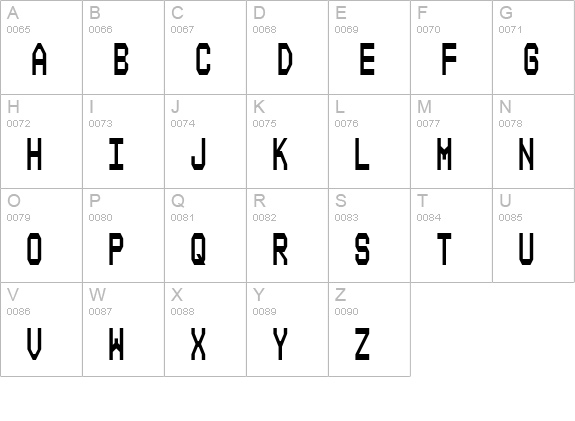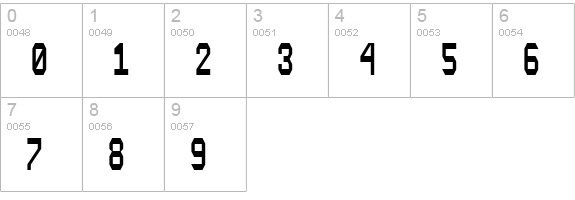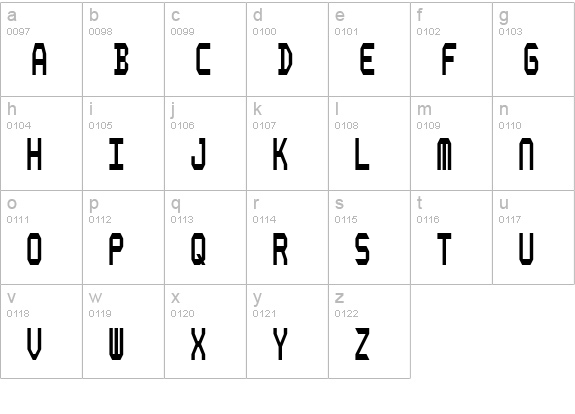
Composite Bold is a strong, high-contrast variant in the Composite typeface family \xE2\x80\x94 well suited to headlines, attention-grabbing titles, and strong calls-to-action.
Composite Bold is a modern and versatile typeface that exudes strength and sophistication. Its bold and eye-catching design makes it ideal for headlines, posters, and branding projects that require a strong visual impact. The unique combination of sharp angles and smooth curves gives Composite Bold a dynamic and contemporary feel that will instantly elevate any design. What's even better is that Composite Bold is completely free to download at FontsMarket.com. This means you can access this high-quality font without any cost, making it a valuable addition to your font collection. Whether you're a designer looking to make a bold statement or a business owner in need of a powerful branding tool, Composite Bold is the perfect choice. Download it today and unleash the bold potential of your projects.